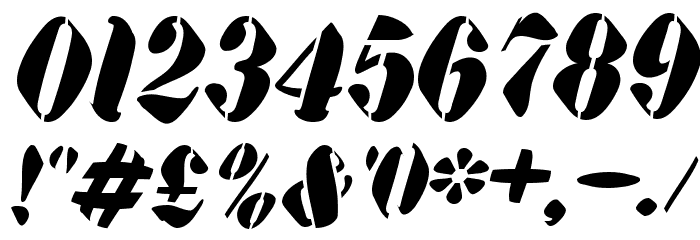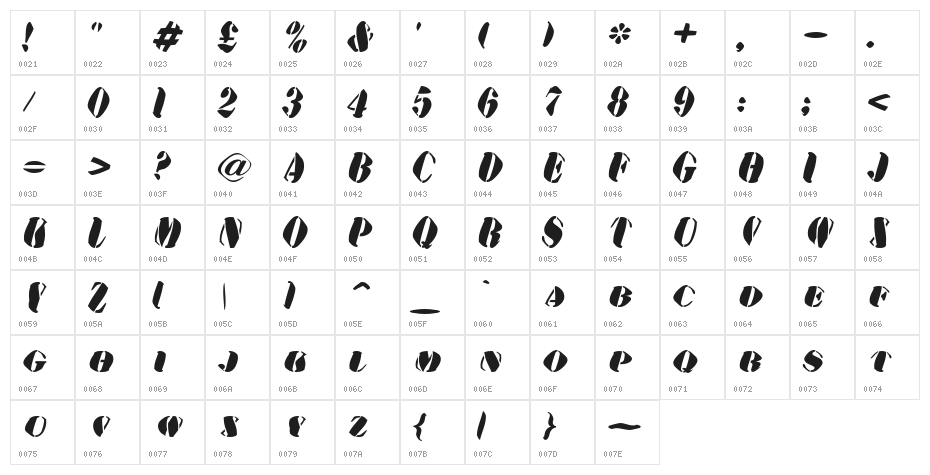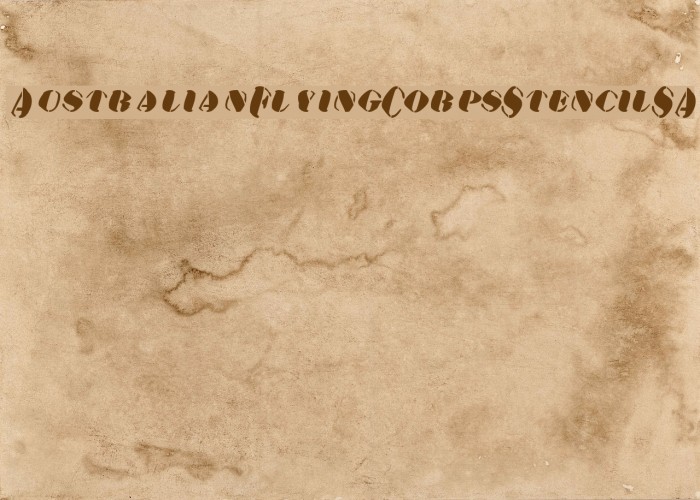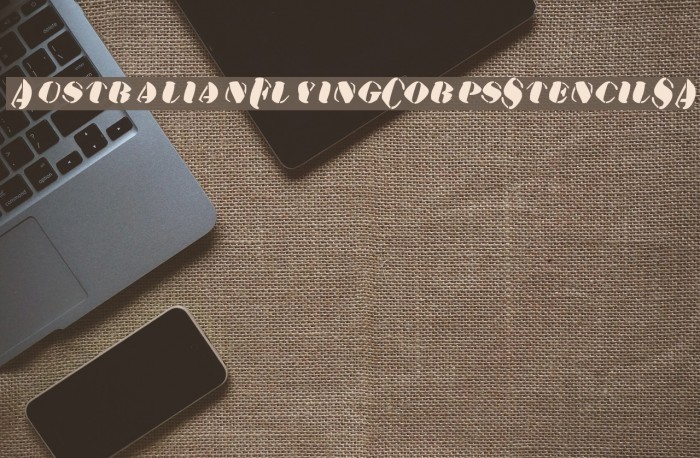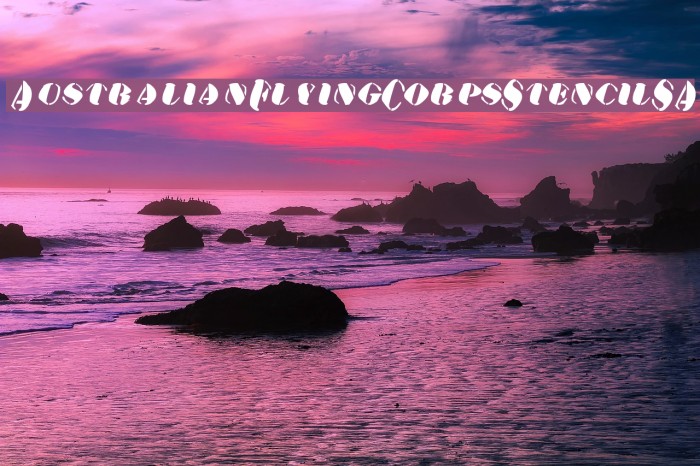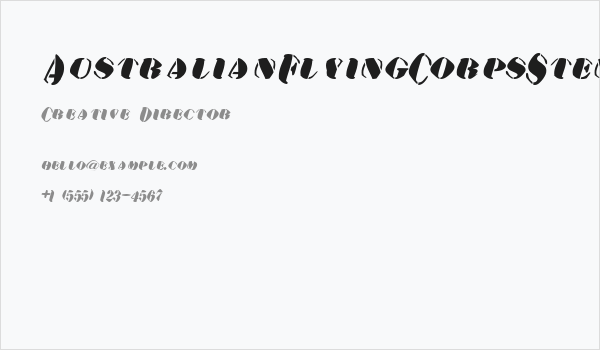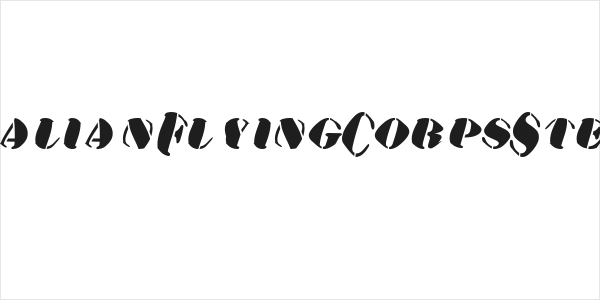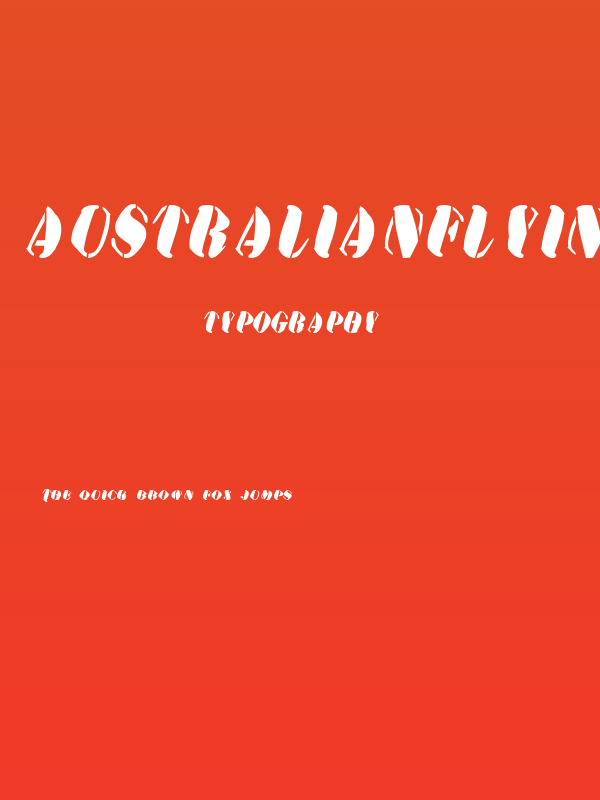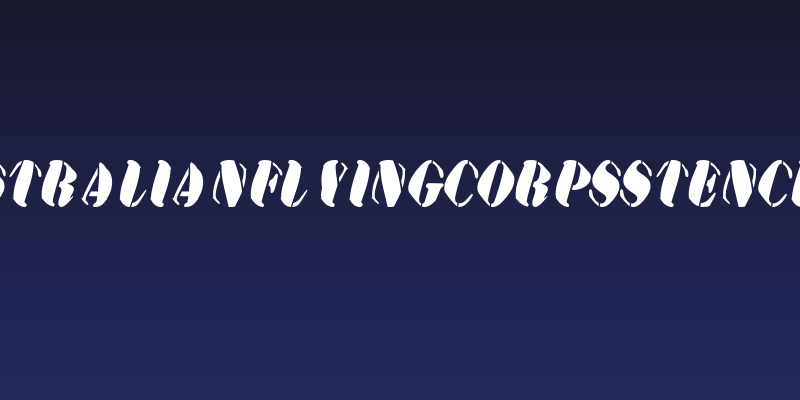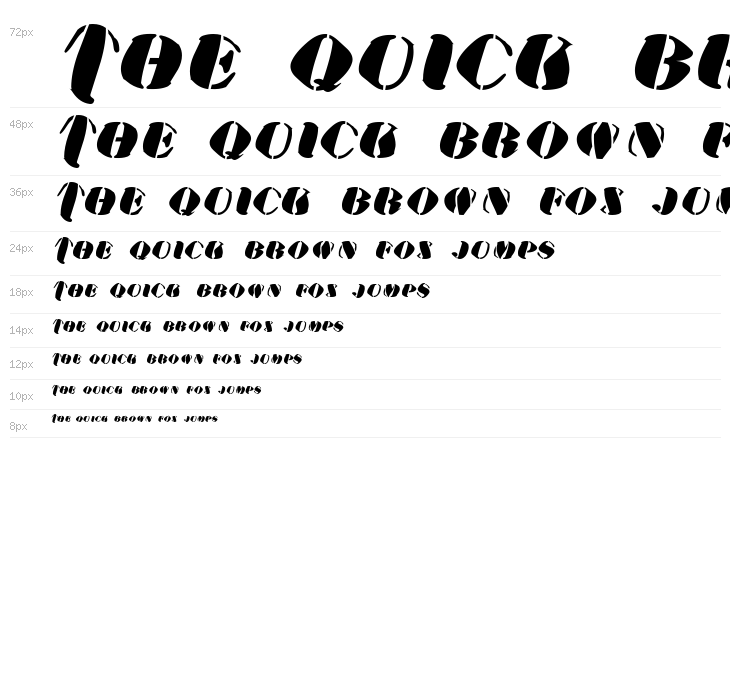
AustralianFlyingCorpsStencilSA Font
AustralianFlyingCorpsStencilSA Description
This font features a bold, stencil-like design with distinct cut-out sections that create a rugged and industrial appearance. The characters are wide and have a strong presence, making them highly visible and impactful. The uppercase and lowercase letters maintain a consistent style, with sharp angles and clean lines. The numbers and special characters follow the same stencil pattern, ensuring uniformity across all elements. This font is ideal for projects that require a bold statement or a military-inspired aesthetic.
| Overall Style | Industrial, Military |
| Use Case | Headlines, Logos, Signage |
| Proposed Projects | Ideal for military-themed designs, industrial branding, signage, and posters. |